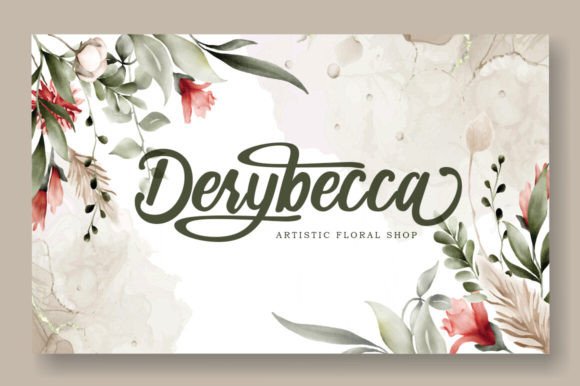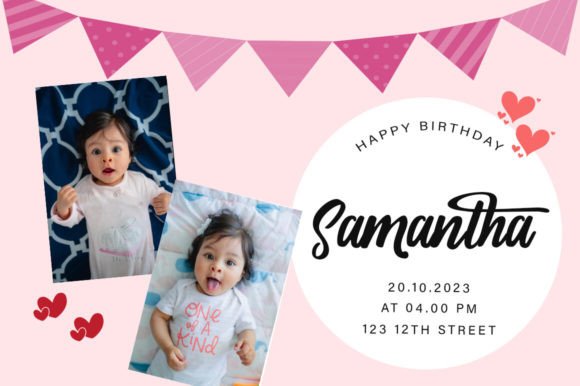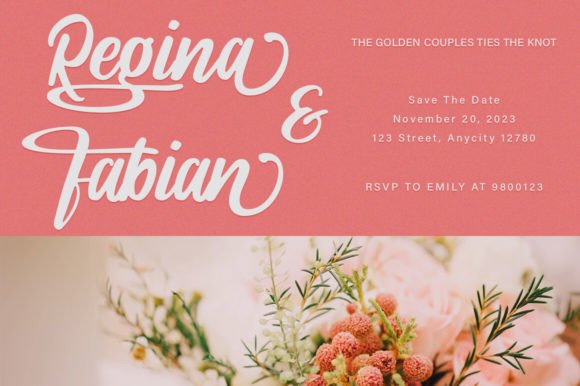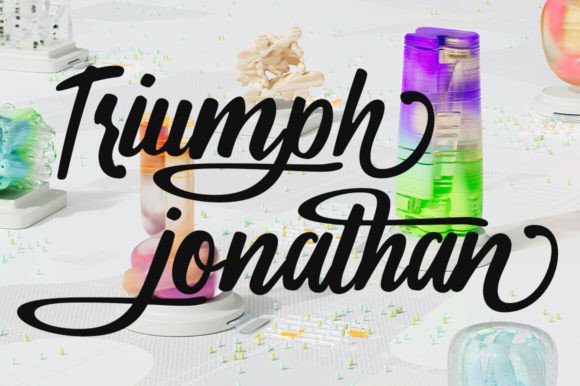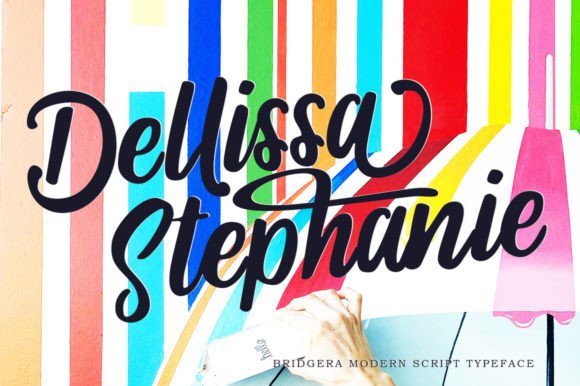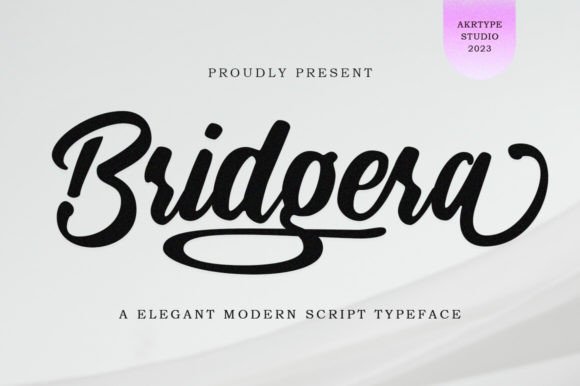
Bridgera Font: A Magical Script Font for Elegant Designs
In the world of typography, fonts play a crucial role in conveying the tone and personality of a design. For designers and crafters looking for a font that exudes elegance and sophistication, Bridgera script font is an excellent choice. This beautiful script font is carefully crafted with a touch of elegance, making it perfect for creating original and outstanding designs.
The Unique Features of Bridgera Script Font
Bridgera script font is a stunning combination of timeless elegance and authentic calligraphy. Its classic style is reminiscent of traditional calligraphy, while its friendly feel makes it approachable and modern. The font features intricate details and smooth lines, giving it a luxurious and refined look. Whether you’re designing a wedding invitation, a logo, or a branding material, Bridgera script font is sure to make your design stand out.
What Makes Bridgera Script Font So Special?
Bridgera script font is more than just a beautiful font – it’s a versatile tool that can elevate your designs to the next level. Here are some of its key features:
- Elegant and Sophisticated: Bridgera script font is designed to add a touch of elegance and sophistication to your designs. Its classic style and refined lines make it perfect for high-end branding, luxury packaging, and wedding designs.
- Timeless and Authentic: The font’s authentic calligraphy style gives it a timeless feel that’s perfect for designs that require a classic look. Whether you’re creating a vintage-inspired design or a modern logo, Bridgera script font is a great choice.
- Friendly and Approachable: Despite its elegant style, Bridgera script font has a friendly feel that makes it approachable and modern. This makes it perfect for designs that require a personal touch, such as invitations, greeting cards, and social media graphics.
How to Use Bridgera Script Font in Your Designs
Bridgera script font is a versatile font that can be used in a variety of design projects. Here are some ideas to get you started:
- Wedding Designs: Use Bridgera script font to create beautiful wedding invitations, save-the-date cards, and wedding stationery.
- Branding and Logo Design: The font’s elegant style makes it perfect for luxury branding, high-end packaging, and logo design.
- Social Media Graphics: Add a touch of elegance to your social media graphics with Bridgera script font. Use it to create stunning Instagram posts, Facebook graphics, and Twitter headers.
- Invitations and Greeting Cards: The font’s friendly feel makes it perfect for creating personalized invitations and greeting cards for special occasions.
Why Designers and Crafters Love Bridgera Script Font
Bridgera script font has become a favorite among designers and crafters due to its unique features and versatility. Here are some reasons why:
- Easy to Read: Despite its elegant style, Bridgera script font is easy to read, making it perfect for designs that require a clear and concise message.
- Highly Versatile: The font can be used in a variety of design projects, from wedding designs to branding and logo design.
- Unique and Original: Bridgera script font is a one-of-a-kind font that can add a touch of originality to your designs.
In conclusion, Bridgera script font is a magical script font that’s perfect for designers and crafters looking for a font that exudes elegance and sophistication. Its unique features, versatility, and friendly feel make it an excellent choice for a variety of design projects. Whether you’re creating a wedding invitation, a logo, or a branding material, Bridgera script font is sure to make your design stand out.